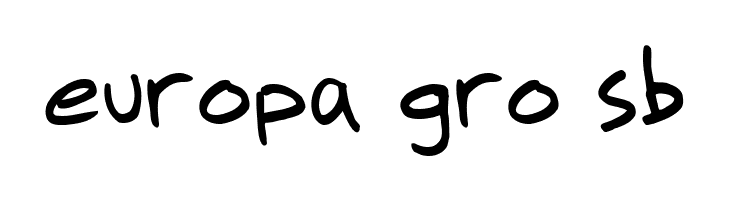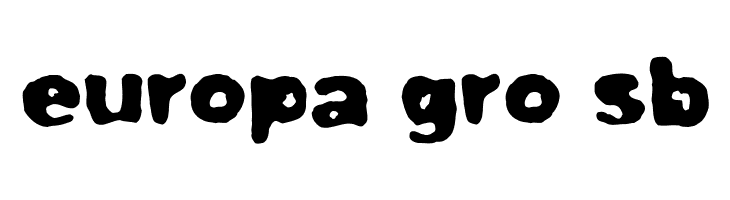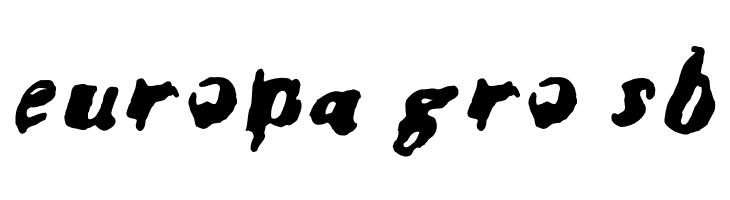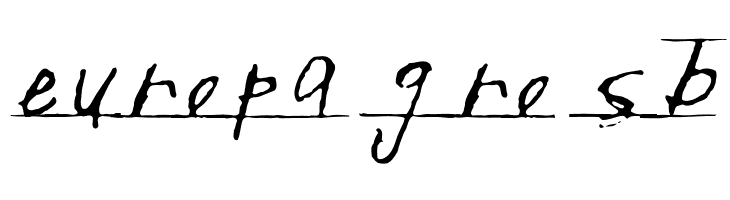
A bold, rugged, hand-drawn style with uneven edges.
A bold, hand-drawn inline font with a sketch-like appearance.
A bold, playful font with thick, uneven strokes and a hand-drawn appearance.
A playful, hand-drawn font with a sketch-like, three-dimensional appearance.
A bold, hand-drawn font with a textured, block-like appearance.
A bold, distressed font with a grunge, hand-painted style.
A casual handwritten font with fluid, uneven strokes.